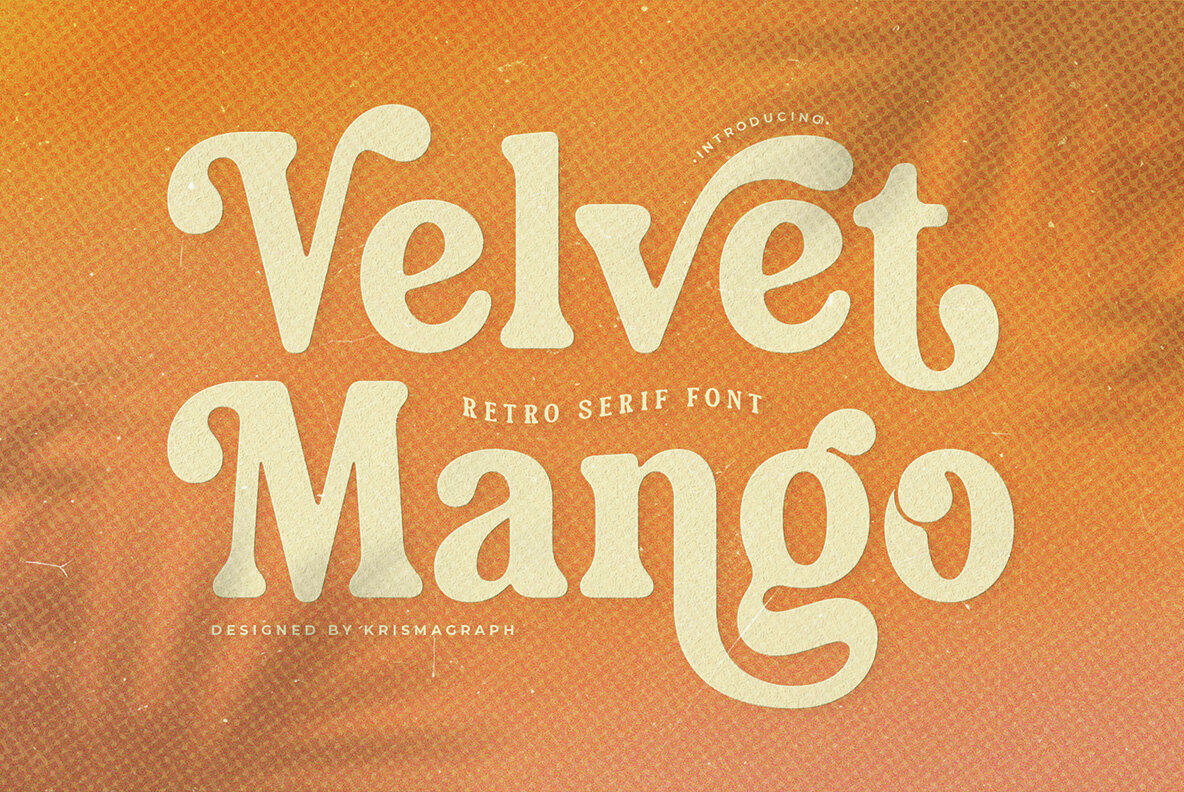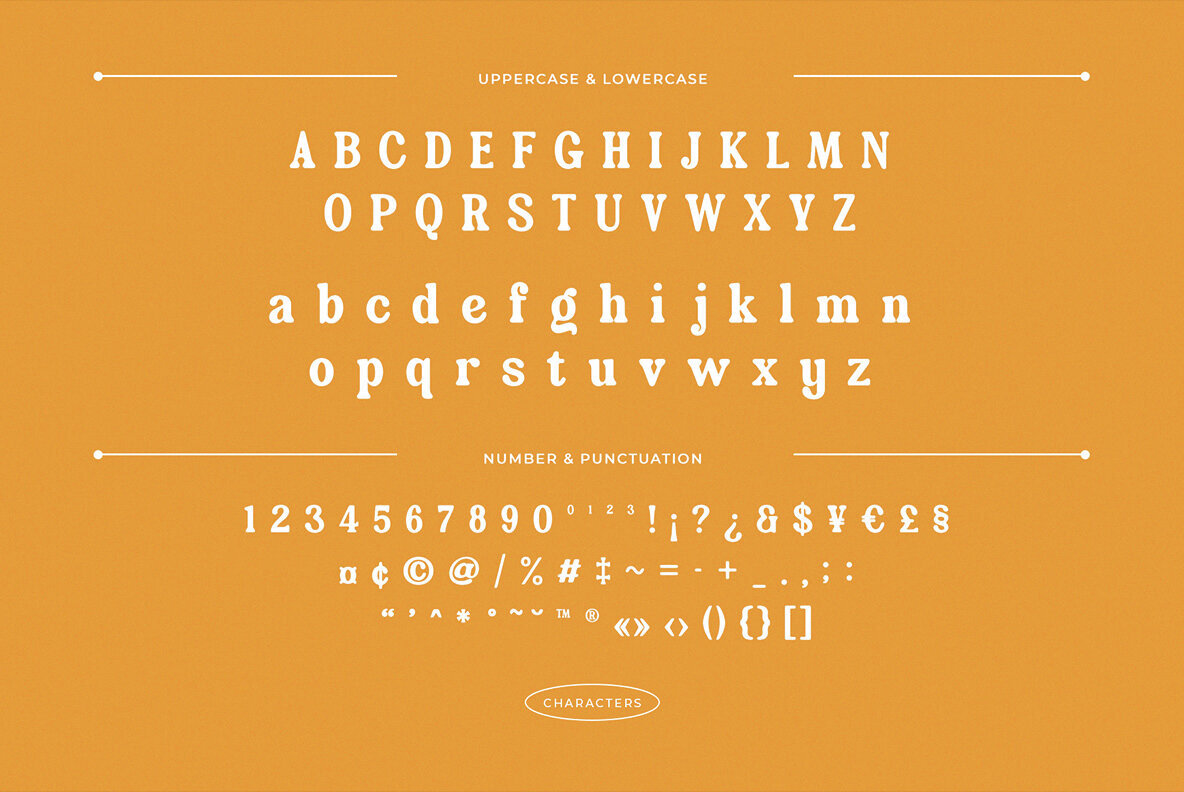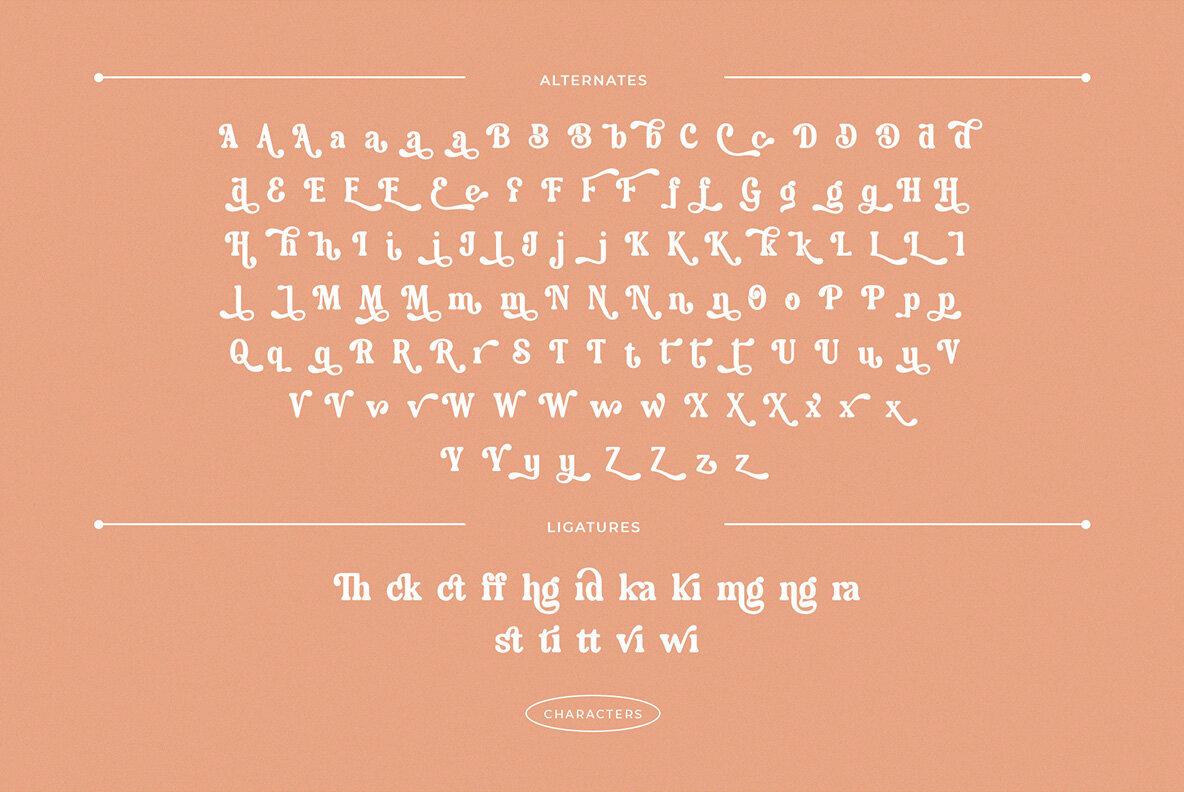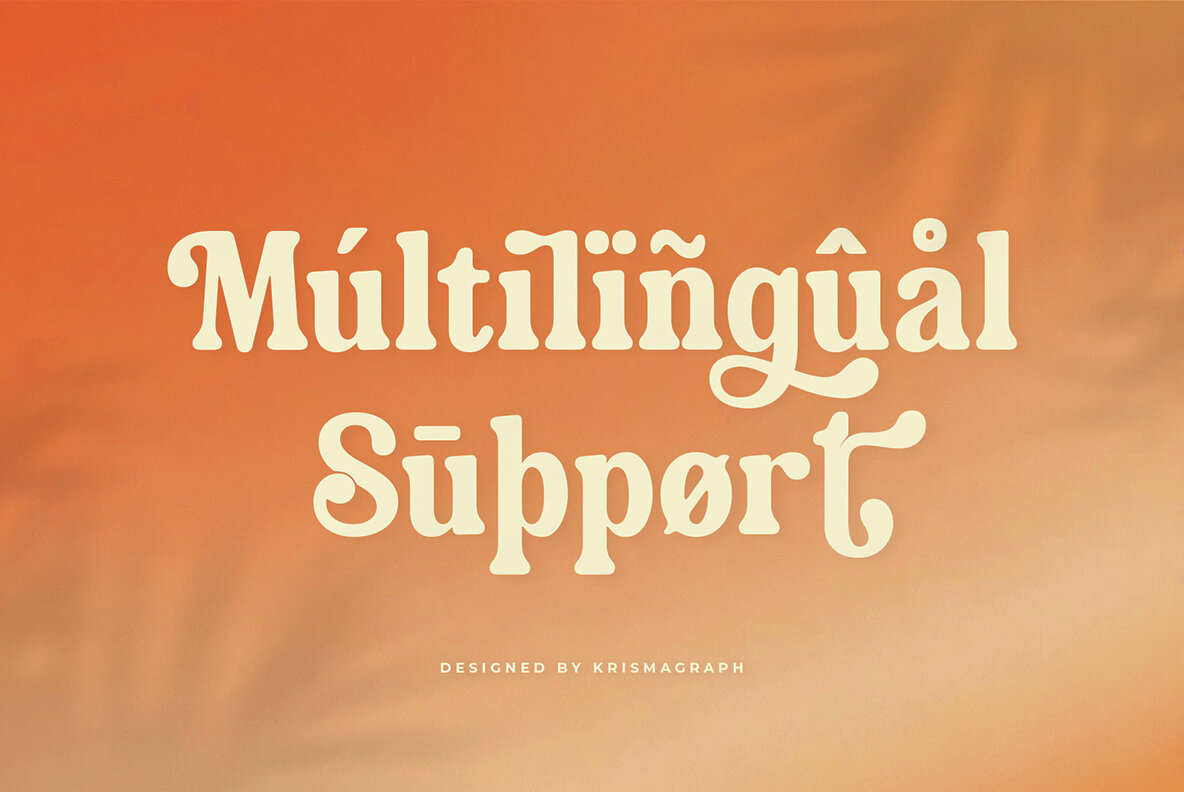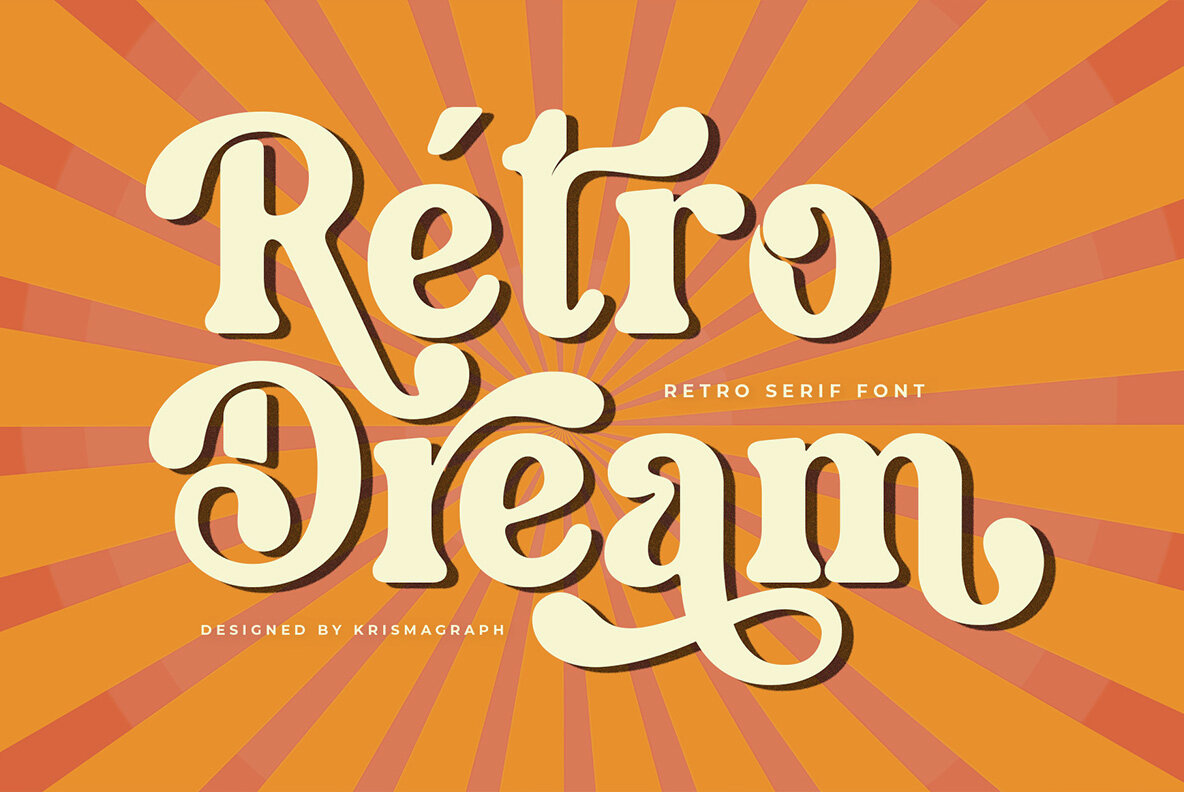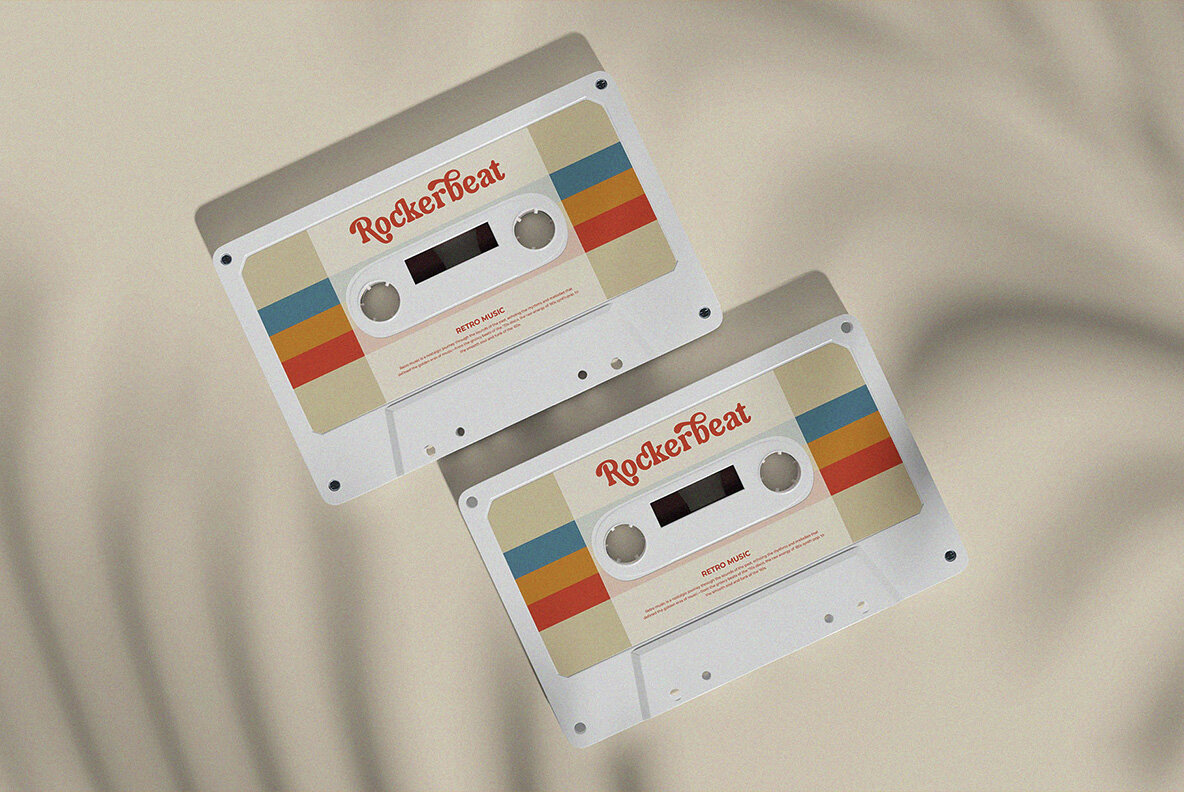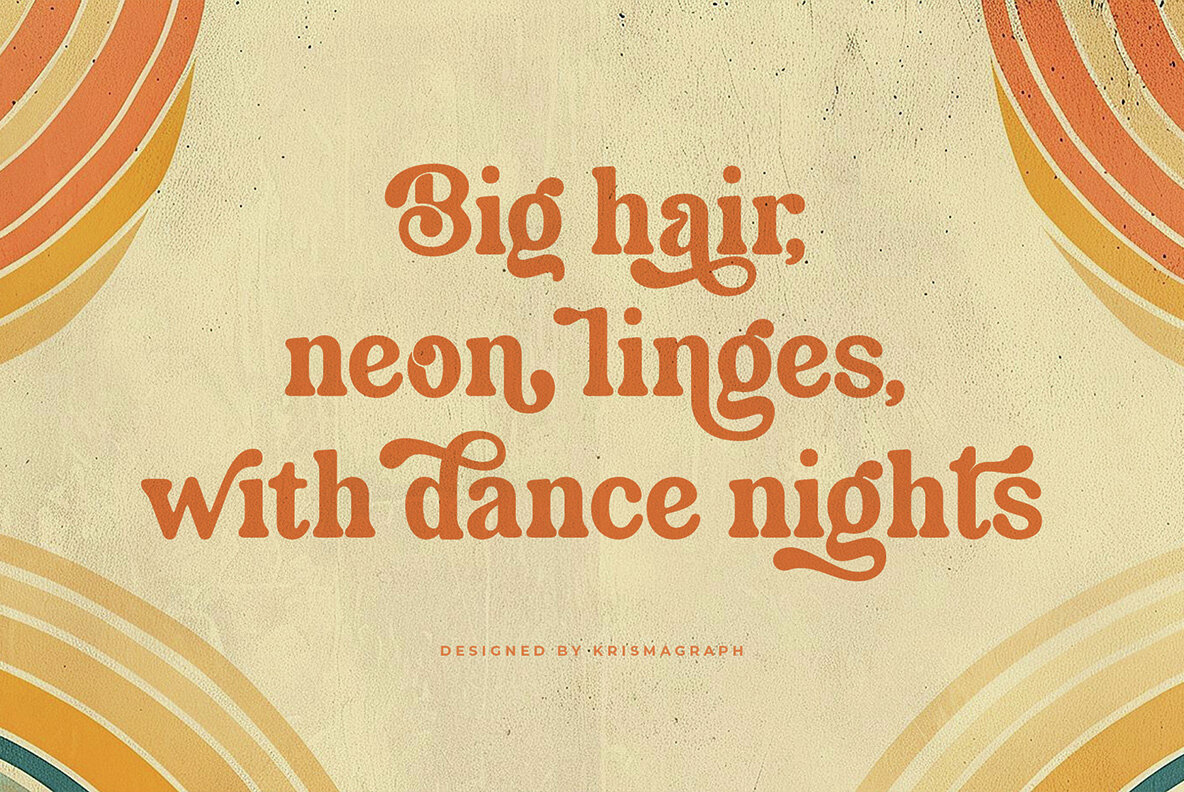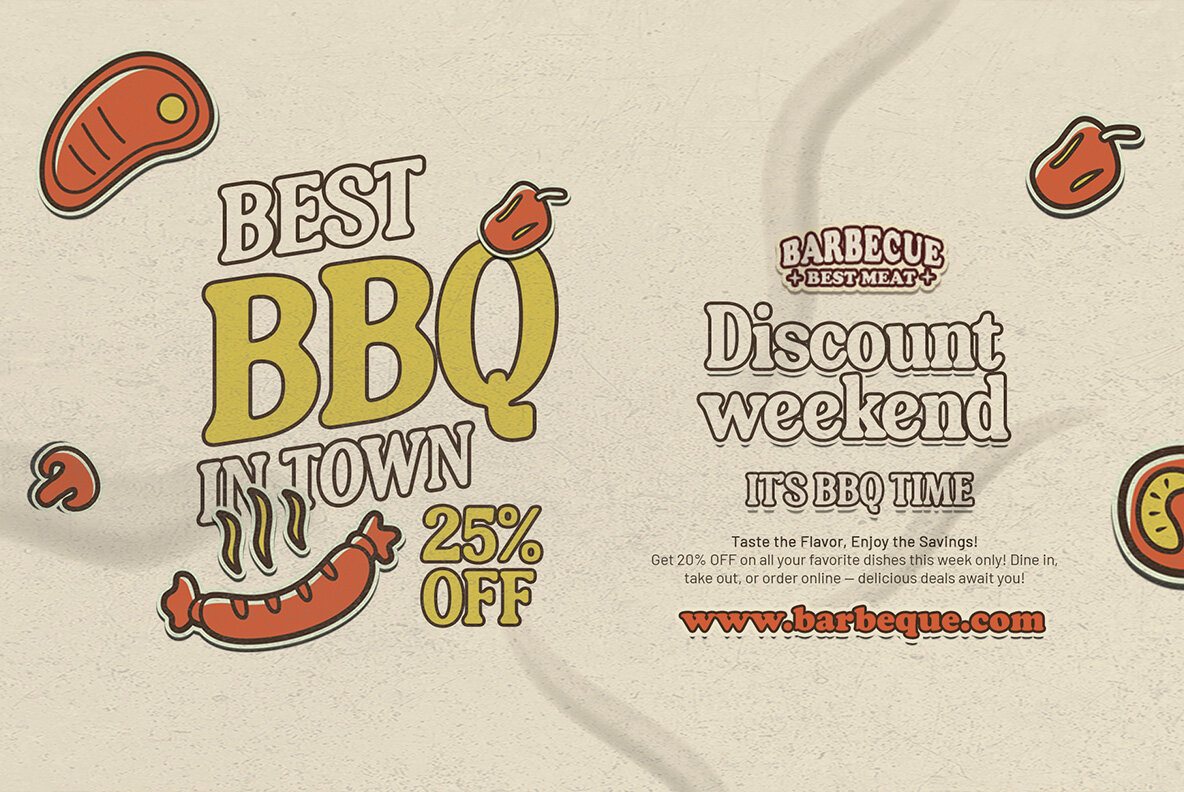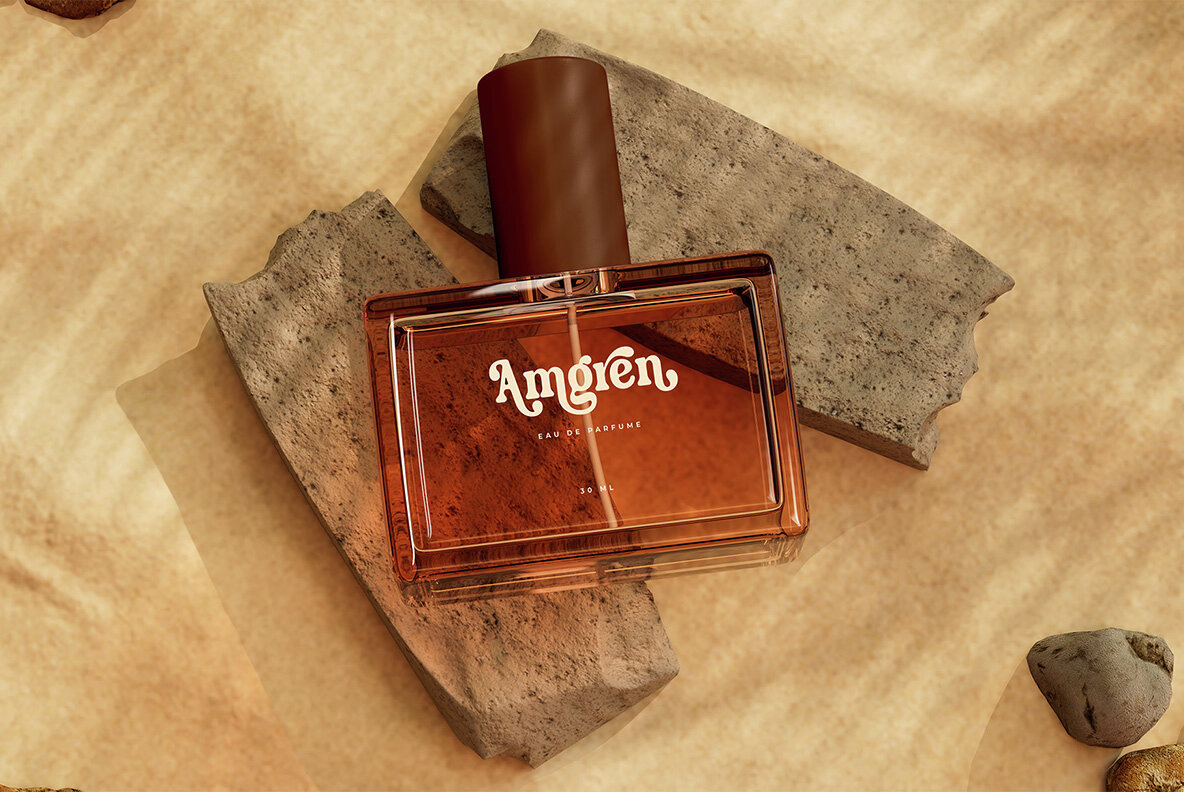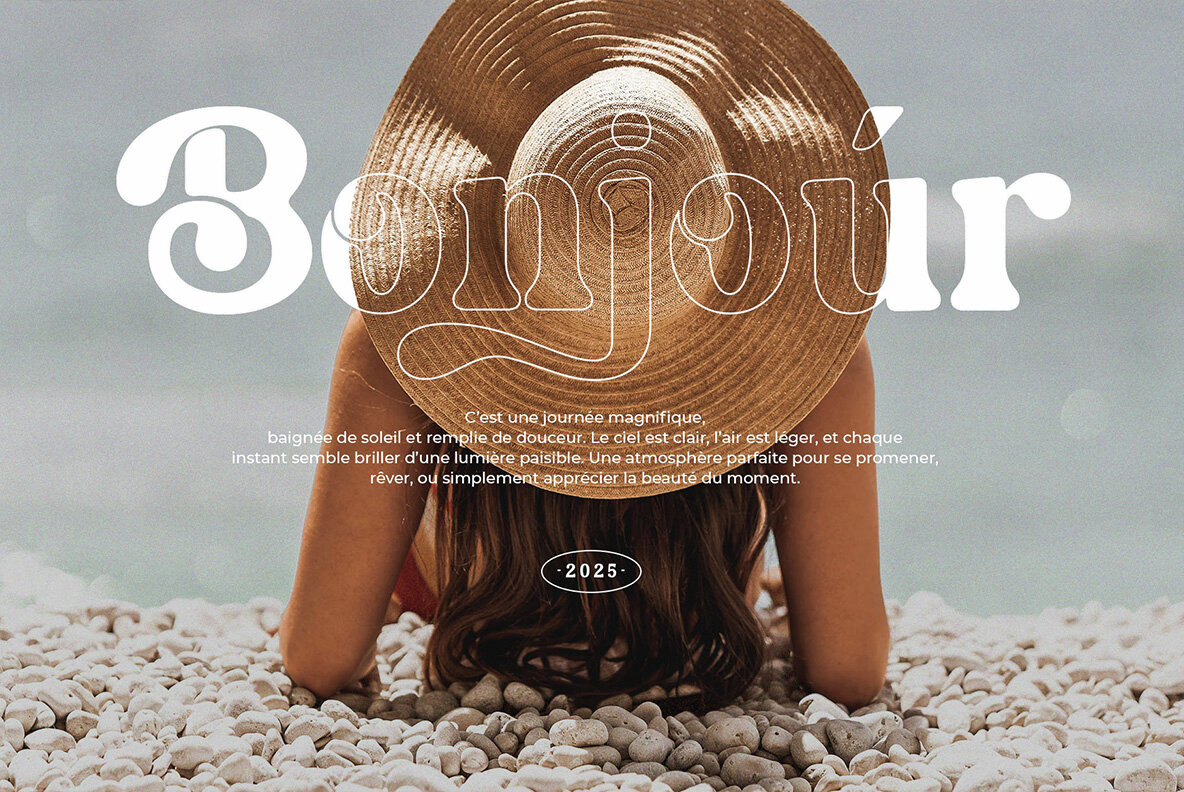
Velvet Mango Font
Velvet Mango Regular
Dive into the playful nostalgia of Velvet Mango, a bold serif font that captures the essence of vintage design with a modern twist. With its groovy curves and soft terminals, this typeface is perfect for adding a dose of retro flair and warm personality to your projects. Inspired by the joyful spirit of the '70s and the charm of handmade lettering, Velvet Mango excels in various creative applications. Whether you're crafting a logo for a retro-themed diner or designing packaging for a nostalgic product line, Velvet Mango's strong serif presence and whimsical details make it both legible and full of character. Let this typeface bring your creative visions to life with its bold style and nostalgic touch.Velvet Mango: A Retro Delight
Why Choose Velvet Mango?